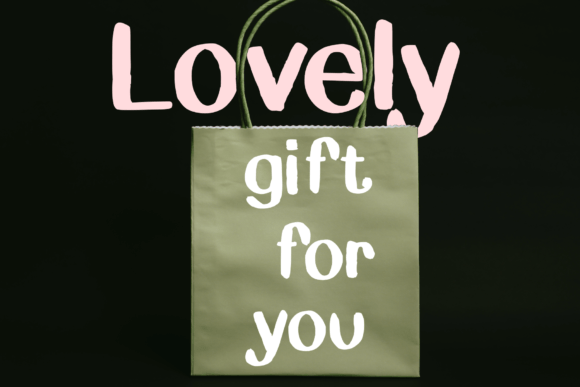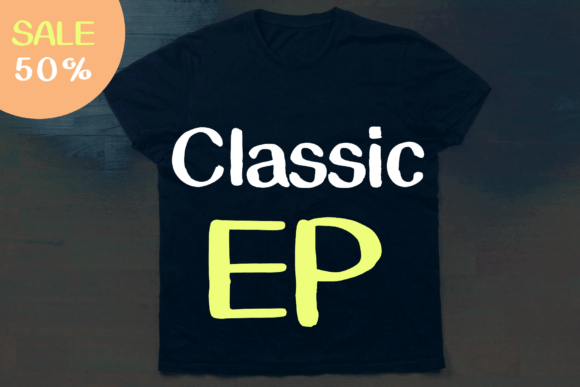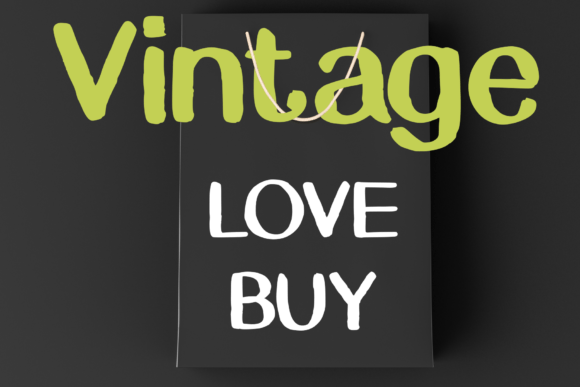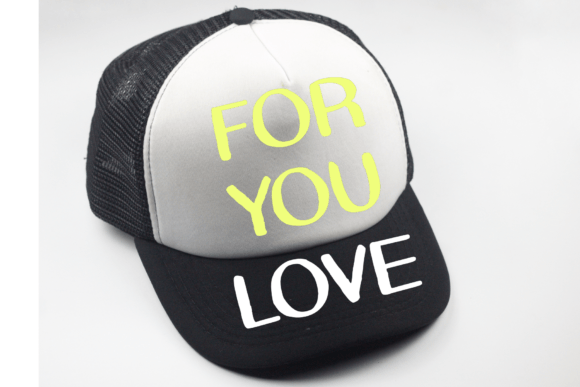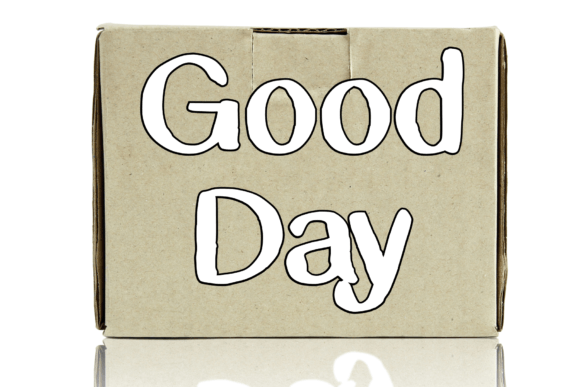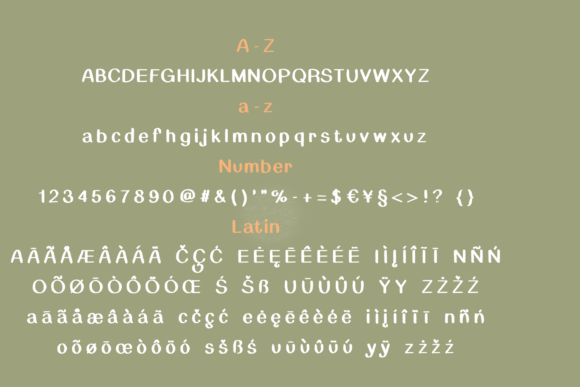
Introduction to Lack Font
This font so cute for your project wedding ,greeting card ,logos ,banding material business card,quotes ,posters, shirts,mugs and more.
Lack Font offers exceptional quality and versatility, making it a valuable addition to your design toolkit. Whether you’re creating for personal projects or commercial use, Lack Font delivers professional results.